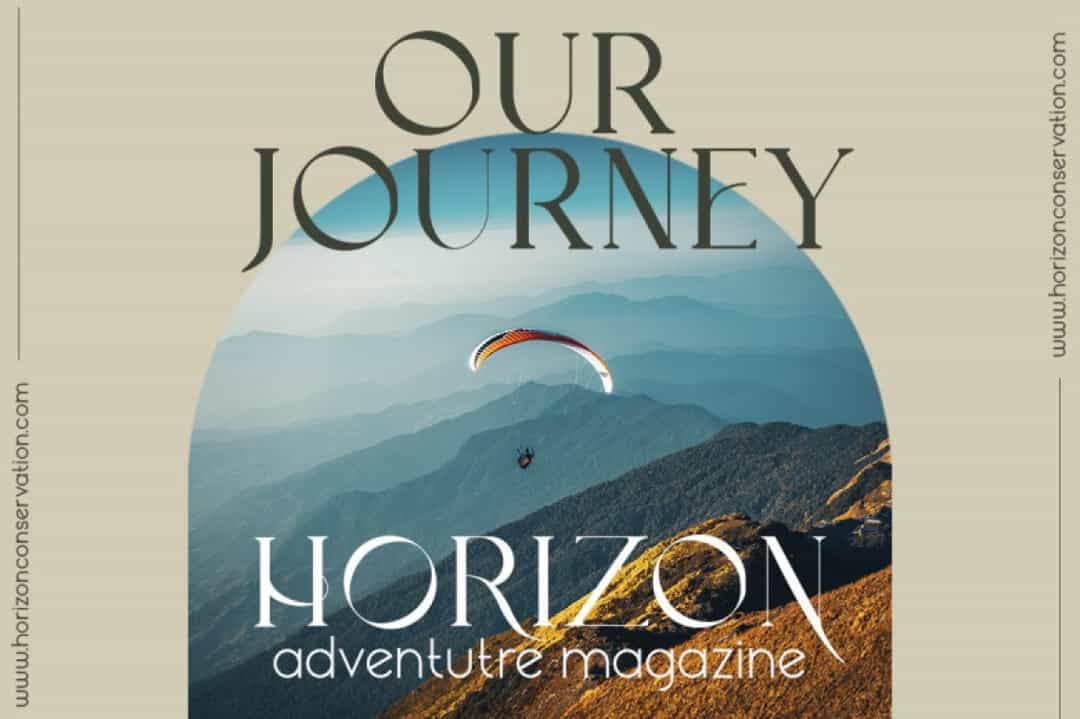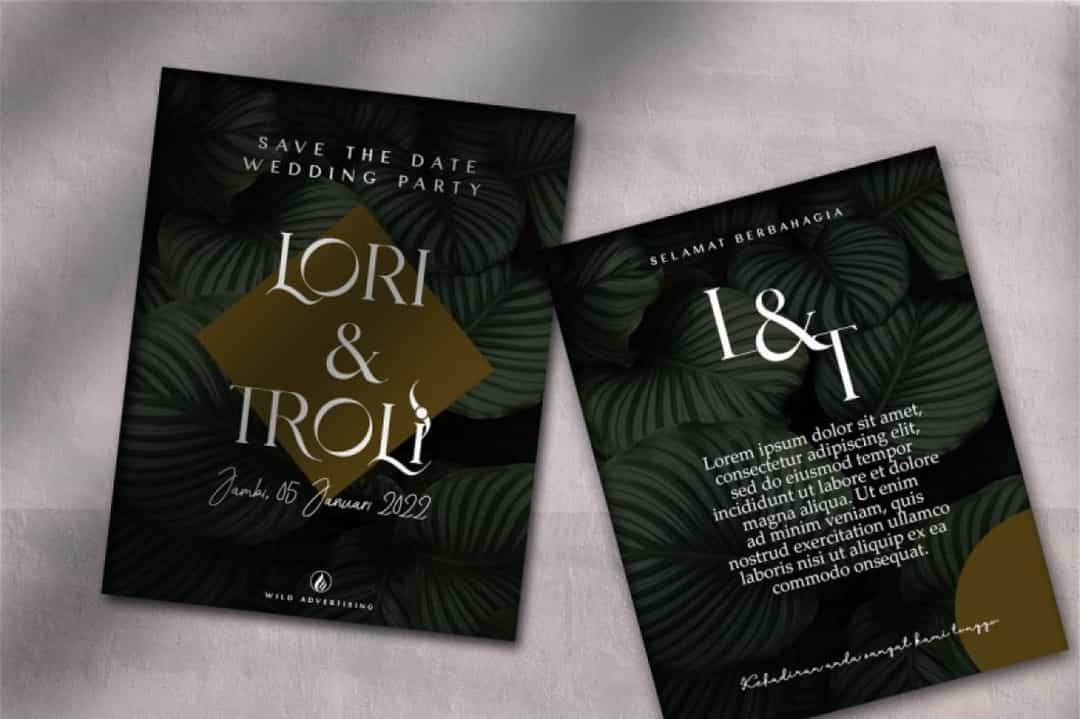
Qomarun, a modern, luxury and fashionable display serif font with its own distinct design for the future of design is here! Qomarun can be used to present products or elegant brand design; packaging; invitation cards or to heading text.